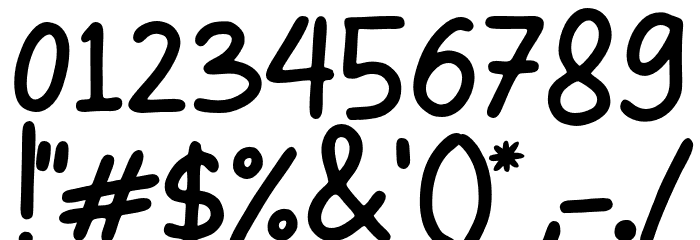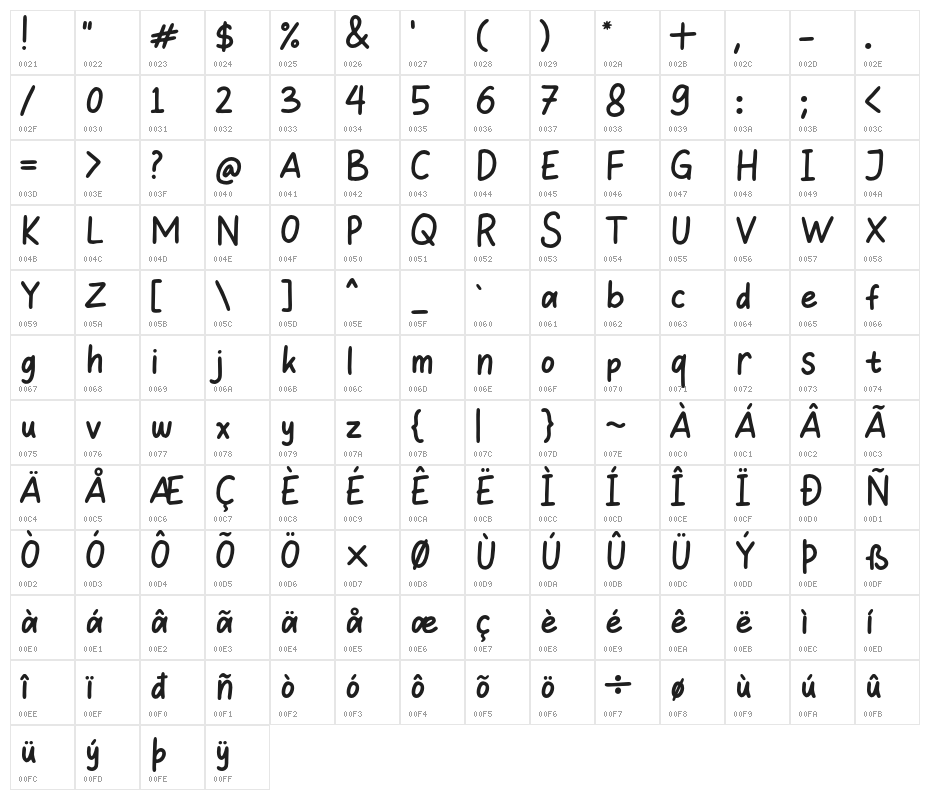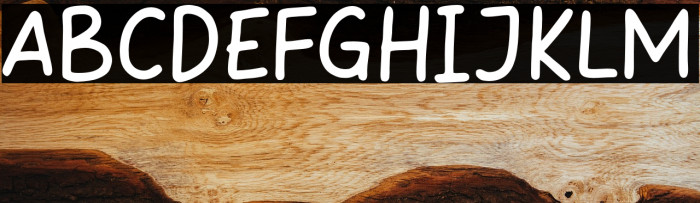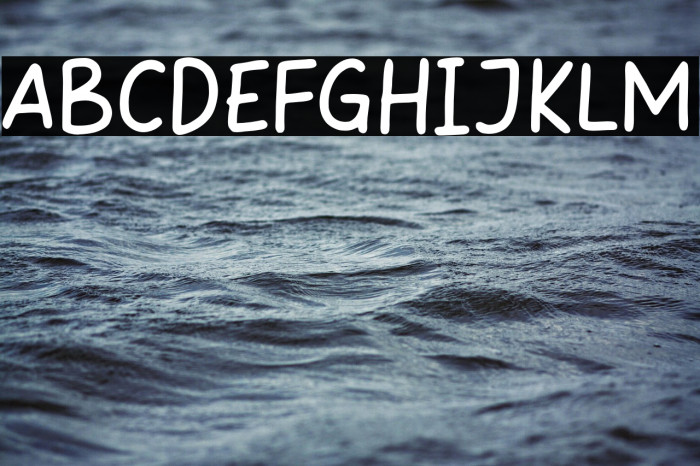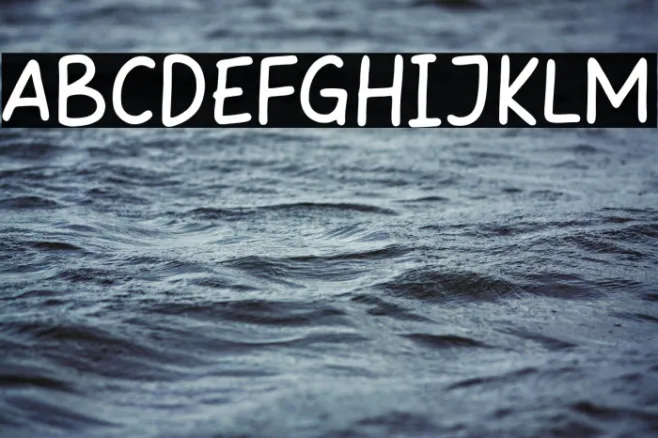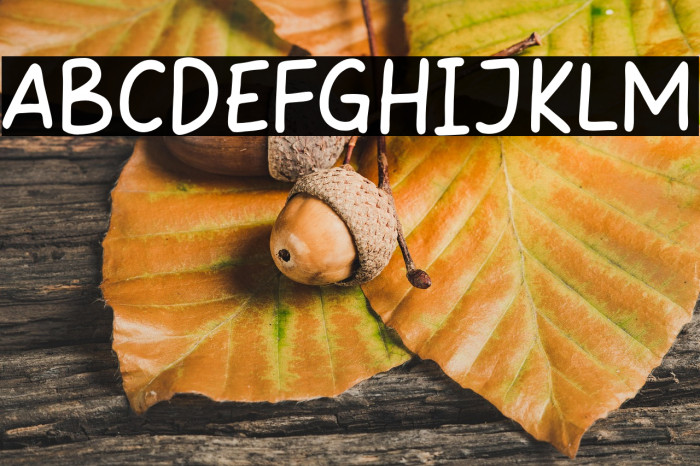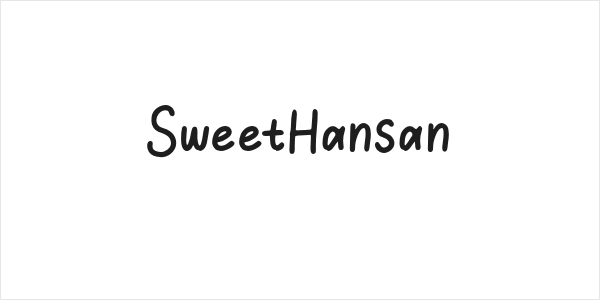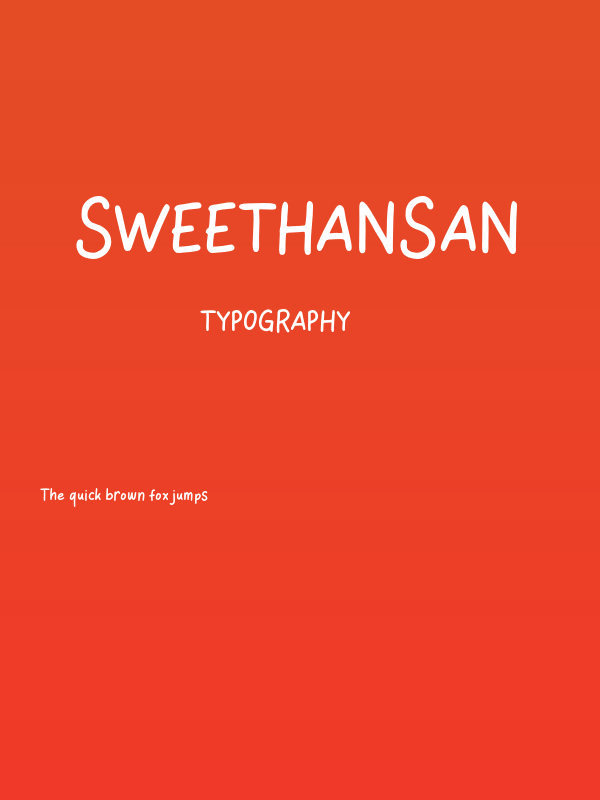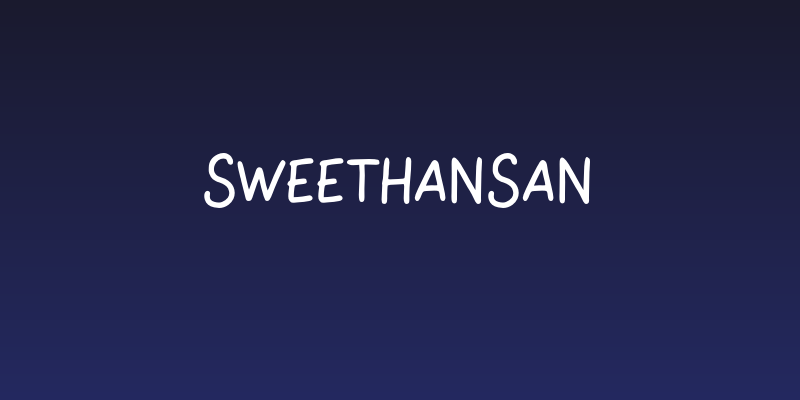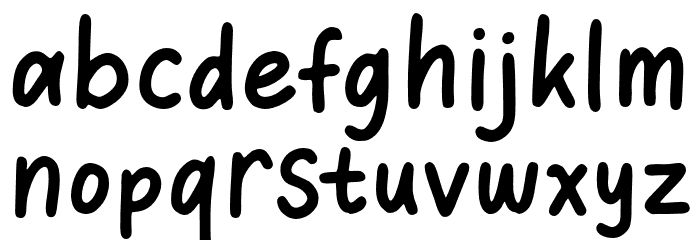
SweetHansan Font
SweetHansan Description
This font features a playful and casual handwritten style with rounded edges and a friendly appearance. The characters are slightly irregular, giving it a natural and organic feel. The uppercase and lowercase letters are well-balanced, maintaining a consistent flow throughout the text. Numbers and special characters are designed to match the overall aesthetic, making it versatile for various uses. The font's informal nature makes it ideal for projects that require a personal touch or a relaxed vibe. Its readability is enhanced by the moderate spacing between characters, ensuring clarity even in longer texts.
| Use Case | Headlines, Informal text, Personal projects |
| Proposed Projects | Ideal for greeting cards, children's books, personal blogs, and informal branding projects. |